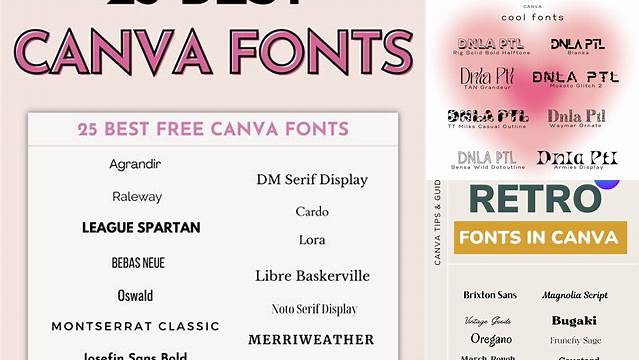
Cool Free Fonts In Canva: Design Like A Pro
Hey guys! Ever feel like your Canva designs are missing that oomph? You know, that special something that makes them pop? Well, chances are, the right font can be a total game-changer. And guess what? Canva's got a massive library of free fonts just waiting to be discovered! So, let's dive into the world of cool fonts in Canva free and how you can use them to create stunning designs. We’ll explore everything from the basics of font pairing to specific font recommendations that will elevate your projects to the next level. Get ready to unleash your inner design guru!
1. Understanding the Basics of Font Pairing in Canva
Okay, so before we jump into specific font recommendations, let's talk about the art of font pairing. Think of it like finding the perfect dance partners – some fonts just naturally groove together, while others... well, they clash. The key to mastering font pairing is understanding contrast. You want to choose fonts that complement each other without being too similar. For example, pairing a bold, attention-grabbing font with a simpler, more readable font is a classic move. This creates visual hierarchy, making your designs easy on the eyes and conveying your message effectively. When considering cool fonts in Canva free, experiment with different combinations to see what works best for your particular project. Don’t be afraid to mix and match serif and sans-serif fonts, or try pairing a script font with a clean sans-serif. The possibilities are endless! Remember, the goal is to create a visually appealing design that is also easy to read and understand. A well-paired font combination can elevate your design from amateur to professional, so take the time to explore and find what resonates with you.
2. Serif Fonts: Timeless and Elegant Options for Canva
Let's kick things off with serif fonts. These fonts have those little decorative strokes (serifs) at the end of each letter, giving them a classic, elegant vibe. Think of them as the sophisticated elder siblings of the font world. Serif fonts are fantastic for body text in longer documents because they guide the reader's eye across the page, making it easier to read. But don't think they're only for serious stuff! When used strategically, serif fonts can also add a touch of class to your social media graphics, logos, and even website headers. Canva offers a wide array of cool fonts in Canva free that fall into the serif category. Some popular choices include Playfair Display, a beautiful high-contrast serif perfect for headings, and Merriweather, a highly readable serif that works wonders for body text. Times New Roman is also an option, though perhaps a bit overused. Experiment with different serif styles, from traditional to modern, to find the perfect fit for your design aesthetic. Remember, a well-chosen serif font can instantly elevate the sophistication and readability of your work, making it a powerful tool in your design arsenal.
3. Sans-Serif Fonts: Modern and Minimalist Choices in Canva
Now, let's talk sans-serif fonts. These are the cool, modern kids on the block – sleek, clean, and without those little serif flourishes. Sans-serif fonts are known for their readability on screens, making them a popular choice for websites, social media graphics, and presentations. They exude a minimalist vibe, perfect for designs that need to feel contemporary and approachable. Canva is packed with cool fonts in Canva free that fit this category. Think Montserrat, a versatile sans-serif that works beautifully in headings and body text, or Open Sans, a classic and highly readable font that's a go-to for many designers. Lato is another excellent choice, offering a balanced and modern feel. When working with sans-serif fonts, consider the weight and width of the letters. A bolder sans-serif can make a strong statement in a heading, while a lighter weight can be used for body text to create a sense of airiness. Pairing a bold sans-serif with a lighter sans-serif is a great way to create visual contrast and hierarchy in your designs. Whether you're aiming for a sleek, corporate look or a friendly, approachable feel, sans-serif fonts are a versatile option to explore in Canva.
4. Script Fonts: Adding a Touch of Elegance and Personality
Ready to add a little flair to your designs? That's where script fonts come in! These fonts mimic the flowing strokes of handwriting, adding a touch of elegance, personality, and even a bit of whimsy to your projects. Script fonts are perfect for logos, invitations, quotes, and anything where you want to make a statement. However, a little goes a long way with script fonts – they can be harder to read in large blocks of text, so it's best to use them sparingly, primarily for headings or accents. Canva boasts a fantastic selection of cool fonts in Canva free within the script category. Pacifico is a popular choice, with its casual and friendly vibe, while Great Vibes exudes a more formal and elegant feel. Brush Script MT is another classic option, known for its bold and expressive strokes. When using script fonts, consider pairing them with a simple sans-serif or serif font to ensure readability. This creates a nice contrast and prevents your design from becoming overwhelming. Experiment with different script styles to find the perfect match for your brand or project. Whether you're aiming for a romantic, playful, or sophisticated look, a well-chosen script font can add that special touch to your designs.
5. Display Fonts: Making a Bold Statement with Canva Fonts
Need a font that screams “Look at me!”? That's where display fonts come in. These fonts are designed to grab attention and make a statement, often featuring unique and decorative styles. They're perfect for headings, posters, logos, and anything where you want to create a strong visual impact. Display fonts are all about personality, so don't be afraid to get creative and experiment with different styles. However, like script fonts, display fonts are best used sparingly – too much can overwhelm your design and make it difficult to read. Canva has a great selection of cool fonts in Canva free that fall into the display category. Bebas Neue is a popular choice for its tall and impactful letters, while Lobster Two offers a more playful and retro vibe. Oswald is another versatile option, with its bold and condensed design. When using display fonts, consider the overall tone and message of your design. A bold and geometric display font might be perfect for a tech company, while a more whimsical display font might be better suited for a children's brand. Pair your display font with a simpler sans-serif or serif font for body text to ensure readability. With the right display font, you can instantly transform your design and make a lasting impression.
6. Best Free Serif Fonts in Canva for Headlines
Headlines are your chance to grab attention and set the tone for your entire design. Choosing the right serif font for your headlines can instantly elevate your project, adding a touch of elegance and authority. Canva offers a plethora of cool fonts in Canva free that are perfect for headlines. One standout option is Playfair Display, a high-contrast serif that exudes sophistication and drama. Its elegant letterforms make it ideal for fashion blogs, wedding invitations, and any design that needs a touch of class. Another excellent choice is Abril Fatface, a bold and impactful serif that demands attention. Its strong presence makes it perfect for magazine covers, posters, and headlines that need to pack a punch. For a more classic and timeless feel, consider using Lora, a well-balanced serif with beautiful curves. It’s incredibly versatile and works well for a variety of projects. When selecting a serif font for your headlines, consider the overall style and message of your design. A bold and dramatic serif can create a sense of excitement, while a more elegant serif can convey sophistication and grace. Experiment with different font sizes and weights to find the perfect balance and ensure your headlines stand out.
7. Top Free Sans-Serif Fonts in Canva for Body Text
Body text is the workhorse of your design, so readability is key. You need a font that's easy on the eyes and doesn't distract from your message. Sans-serif fonts are generally a great choice for body text due to their clean and minimalist design. Canva offers a fantastic selection of cool fonts in Canva free that are perfect for this purpose. Open Sans is a classic and highly readable sans-serif that's a go-to for many designers. Its clean lines and balanced letterforms make it ideal for websites, blog posts, and any design that requires a lot of text. Another excellent option is Lato, a well-balanced and modern sans-serif that's known for its versatility. It works well in both print and digital formats, making it a great choice for a wide range of projects. For a slightly more condensed feel, consider using Montserrat, a popular sans-serif that's both stylish and readable. Its geometric design adds a touch of modernity to any project. When choosing a sans-serif font for your body text, prioritize readability and ensure it complements your headline font. A well-chosen body text font will make your designs easy to read and engage with, helping you to communicate your message effectively.
8. Must-Try Script Fonts for Logos and Branding
Your logo is the face of your brand, so it needs to be memorable and impactful. Script fonts can add a touch of personality and elegance to your logo, making it stand out from the crowd. Canva has a fantastic collection of cool fonts in Canva free that are perfect for logos and branding. One popular choice is Pacifico, a casual and friendly script font that exudes a laid-back vibe. It’s perfect for brands that want to convey a sense of warmth and approachability. For a more elegant and sophisticated look, consider using Great Vibes, a beautiful script font with flowing letterforms. It’s ideal for luxury brands, wedding businesses, and any project that needs a touch of class. Another excellent option is Playlist Script, a modern and stylish script font that’s perfect for contemporary brands. Its clean lines and bold strokes make it highly versatile and easy to use. When selecting a script font for your logo, ensure it reflects your brand's personality and values. A well-chosen script font can add a unique and memorable touch to your logo, helping you to build a strong brand identity.
9. Creative Display Fonts to Elevate Your Social Media Graphics
Social media is a visual platform, so your graphics need to grab attention and stand out in a crowded feed. Creative display fonts can add a unique and eye-catching element to your social media posts, helping you to attract followers and engage with your audience. Canva offers a wide array of cool fonts in Canva free that are perfect for social media graphics. One standout option is Bebas Neue, a tall and impactful sans-serif that’s perfect for headlines and call-to-actions. Its bold presence ensures your message won't be missed. For a more playful and retro vibe, consider using Lobster Two, a fun and quirky display font that adds a touch of personality to your designs. It’s ideal for Instagram stories, promotional graphics, and any social media post that needs a little extra flair. Another excellent choice is Oswald, a bold and condensed sans-serif that’s perfect for headlines and captions. Its versatile design makes it easy to use in a variety of social media formats. When using display fonts in your social media graphics, consider the overall aesthetic of your brand and choose fonts that align with your brand identity. A well-chosen display font can help you to create visually appealing social media content that captures attention and drives engagement.
10. Font Combinations That Work Wonders in Canva
The key to great typography is not just choosing individual fonts, but also combining them effectively. Font pairing can seem daunting, but it’s all about creating contrast and visual harmony. When done well, font combinations can elevate your designs and make your message more impactful. Canva offers a plethora of cool fonts in Canva free, so let’s explore some combinations that work wonders. A classic pairing is a bold serif for headlines with a clean sans-serif for body text. For example, Playfair Display paired with Montserrat is an elegant and readable combination. Another effective pairing is a script font for headings with a simple sans-serif for body text. Pacifico paired with Open Sans is a friendly and approachable combination that works well for websites and social media graphics. For a modern and minimalist look, try pairing a bold sans-serif with a lighter sans-serif. Bebas Neue paired with Lato is a stylish and contemporary combination that’s perfect for branding and marketing materials. When experimenting with font combinations, consider the overall tone and style of your design. A well-chosen font pairing can create a cohesive and visually appealing design that effectively communicates your message.
11. Using Canva's Font Filters to Find the Perfect Style
Canva's font library is vast, which is fantastic, but it can also be a little overwhelming. Luckily, Canva offers font filters that help you narrow down your search and find the perfect style for your project. These filters allow you to sort fonts by categories like serif, sans-serif, script, and display, making it easier to browse within specific styles. You can also filter by style characteristics, such as bold, light, or handwritten, which helps you find fonts that match your desired aesthetic. The filter option is a lifesaver when exploring the cool fonts in Canva free offerings. For example, if you’re looking for a modern and minimalist font, you can filter by sans-serif and then select “geometric” or “condensed” styles. If you need a font for a wedding invitation, you can filter by script and then select “elegant” or “formal.” Canva’s font filters are a powerful tool for streamlining your font selection process. By using these filters, you can quickly and easily find the perfect font to complement your design, saving you time and effort. So, don't hesitate to dive into those filters and discover the hidden gems in Canva's font library.
12. Uploading Your Own Fonts to Canva for More Customization
While Canva has a fantastic selection of free fonts, sometimes you need something truly unique. That's where the ability to upload your own fonts comes in handy! Canva Pro users have the option to upload their own fonts, giving them even more flexibility and customization options. This is a game-changer for branding consistency, allowing you to use your brand's specific fonts in all your Canva designs. The upload process is super simple – just navigate to the Brand Kit section in Canva, and you'll find the option to upload your fonts. Once uploaded, your fonts will be available alongside Canva's built-in fonts, making it easy to incorporate them into your projects. This is a huge advantage when working with cool fonts in Canva free because it expands your creative possibilities exponentially. Imagine finding the perfect font online, purchasing it, and then seamlessly integrating it into your Canva workflow. Uploading your own fonts also allows you to use fonts that might not be available in Canva's free library, giving you access to a wider range of styles and designs. So, if you're serious about branding or just want to add a personal touch to your designs, consider upgrading to Canva Pro and unlocking the power of font uploads.
13. Using Fonts to Create Visual Hierarchy in Your Designs
Visual hierarchy is a crucial design principle that guides the viewer's eye and helps them understand the information you're presenting. Fonts play a significant role in creating visual hierarchy by establishing the importance of different elements in your design. Think of it like this: headlines should be bold and attention-grabbing, while body text should be easy to read and less prominent. The way you use cool fonts in Canva free can directly impact how effectively your audience engages with your content. You can create visual hierarchy by varying font sizes, weights, and styles. For example, using a larger font size for headlines and a smaller font size for body text instantly creates a visual distinction. Similarly, using a bold font for headings and a regular weight for body text emphasizes the headlines. Font styles also play a role – a script font might be used for a subheading to add a touch of personality, while a clean sans-serif is used for the main body of text. Consistency is key when creating visual hierarchy. Stick to a limited number of fonts and use them strategically to create a clear and organized design. A well-defined visual hierarchy makes your designs more engaging and easier to understand, ensuring your message is communicated effectively.
14. Pairing Fonts with Images for Maximum Impact
Fonts and images are the dynamic duo of design – they work together to create a cohesive and impactful visual experience. Pairing fonts with images thoughtfully can amplify your message and make your designs more compelling. When choosing cool fonts in Canva free to complement your images, consider the overall tone and style of your design. A modern photograph might pair well with a clean sans-serif font, while a vintage-inspired image might look stunning with a classic serif font or even a script. Think about the emotions you want to evoke and choose fonts that align with those emotions. For instance, a bold and energetic image might benefit from a strong display font, while a calming and serene image might pair well with a delicate serif font. Contrast is also important. If your image is visually busy, choose a simple and readable font to avoid overwhelming the viewer. Conversely, if your image is minimalist, you can use a more decorative font to add personality. Pay attention to the color palette as well. Ensure your font color complements the colors in your image, creating a harmonious and visually appealing design. By carefully pairing fonts with images, you can create designs that are both visually stunning and highly effective at communicating your message.
15. Font Psychology: Choosing Fonts That Convey the Right Message
Did you know that fonts have personalities? It's true! The fonts you choose can subtly influence how your audience perceives your message. This is where font psychology comes into play – understanding the emotional associations people have with different font styles. When selecting cool fonts in Canva free, it’s essential to consider the message you want to convey and the emotions you want to evoke. Serif fonts, with their classic and traditional appearance, often convey a sense of authority, trustworthiness, and stability. They're a great choice for brands that want to project a sense of history and reliability. Sans-serif fonts, on the other hand, are often seen as modern, clean, and approachable. They're a popular choice for tech companies, startups, and brands that want to project a contemporary image. Script fonts evoke feelings of elegance, creativity, and personalization. They're perfect for brands that want to add a touch of personality and sophistication. Display fonts are the attention-grabbers, conveying a sense of playfulness, excitement, or drama. They're ideal for headlines, posters, and designs that need to make a bold statement. By understanding font psychology, you can choose fonts that align with your brand's personality and effectively communicate your message to your target audience.
16. Kerning, Tracking, and Leading: Fine-Tuning Your Typography
Okay, so you've chosen your fonts – awesome! But the journey to perfect typography doesn't end there. Now it's time to dive into the nitty-gritty details: kerning, tracking, and leading. These three elements are essential for fine-tuning your typography and ensuring your text looks polished and professional. Kerning refers to the spacing between individual letters. Adjusting the kerning can improve readability and make your text look more balanced. Tracking, also known as letter-spacing, refers to the uniform spacing between all letters in a word or line of text. Increasing the tracking can create a more airy and modern feel, while decreasing it can make your text look more condensed. Leading (pronounced “ledding”) refers to the vertical space between lines of text. Adjusting the leading can dramatically impact readability. Too little leading can make your text feel cramped, while too much leading can make it feel disconnected. Canva provides tools to adjust kerning, tracking, and leading, allowing you to fine-tune your typography and achieve a professional look. Experiment with these settings when using cool fonts in Canva free to see how they affect the overall appearance of your text. Mastering these subtle adjustments can elevate your designs from good to great!
17. Creating Font Mood Boards for Design Inspiration
Feeling stuck in a font rut? One of the best ways to spark creativity and explore new typography ideas is to create a font mood board. Think of it as a visual playground for fonts – a place where you can gather inspiration, experiment with different styles, and discover new combinations. A font mood board can be physical (think magazine cutouts and handwritten notes) or digital (using tools like Pinterest or Canva itself). Start by collecting fonts that you find appealing, regardless of whether they fit a specific project. Include a mix of serif, sans-serif, script, and display fonts to create a diverse range of options. When using cool fonts in Canva free, consider screenshotting examples of fonts used in designs that catch your eye. Then, experiment with different font pairings, sizes, and colors to see how they interact with each other. Add images, textures, and color palettes to your mood board to create a holistic visual representation of your design style. Refer to your font mood board whenever you're starting a new project or feeling creatively blocked. It's a fantastic way to jumpstart your design process and ensure your typography is on point. Creating font mood boards is not just fun – it's a valuable tool for developing your design skills and staying inspired.
18. Free Font Resources Outside of Canva to Expand Your Options
Canva's font library is fantastic, but sometimes you need to venture outside to find that perfect font. The good news is there are tons of amazing free font resources available online! Exploring these resources can significantly expand your options and help you discover unique and interesting fonts that you might not find within Canva. When searching for cool fonts in Canva free becomes too limiting, sites like Google Fonts, Font Squirrel, and DaFont are treasure troves of free typography. Google Fonts offers a massive library of open-source fonts that are free for both personal and commercial use. Font Squirrel curates high-quality free fonts, ensuring you're getting well-designed typography. DaFont is a classic resource with a vast collection of fonts, although it's important to check the license for each font before using it commercially. When downloading fonts from external sources, be mindful of the licensing terms. Some fonts are free for personal use only, while others can be used commercially. Make sure you understand the license before using the font in your projects. Once you've downloaded your fonts, you can upload them to Canva Pro to use them in your designs. Expanding your font library with external resources is a great way to add personality and uniqueness to your Canva projects.
19. Avoiding Common Font Mistakes in Your Designs
Choosing the right fonts is crucial, but it's equally important to avoid common font mistakes that can detract from your designs. Overusing fonts, pairing incompatible styles, and neglecting readability are just a few pitfalls to watch out for. A common mistake is using too many fonts in a single design. Sticking to two or three fonts at most will create a more cohesive and professional look. Another pitfall is pairing fonts that are too similar. You want to create contrast, but not confusion. Pairing a bold display font with a delicate script font, or a classic serif with a clean sans-serif are some examples of excellent contrasts. Neglecting readability is a major issue, especially in body text. Avoid using overly decorative or script fonts for long passages of text, as they can be difficult to read. Also, be mindful of font sizes and colors. Ensure your text is large enough to read easily and that the color contrasts well with the background. When using cool fonts in Canva free, consider how the font's spacing impacts the design. Tight spacing can make text cramped, while too much spacing can make it feel disconnected. By avoiding these common font mistakes, you can ensure your designs are visually appealing, easy to read, and effectively communicate your message.
20. How to Stay Up-to-Date with Font Trends and New Releases
The world of typography is constantly evolving, with new fonts and trends emerging all the time. Staying up-to-date with these trends can help you keep your designs fresh, modern, and relevant. So, how do you stay in the loop? Following design blogs and websites is a great way to stay informed about new font releases and trending styles. Websites like Typewolf, Creative Bloq, and Awwwards often feature articles and showcases on typography trends. Another fantastic way to stay updated is to follow typographers and designers on social media platforms like Instagram and Behance. These platforms are a treasure trove of design inspiration and allow you to see how professionals are using fonts in their work. Subscribing to newsletters from font foundries and design resources can also provide valuable insights into new font releases and industry trends. Exploring cool fonts in Canva free and outside of Canva also benefits from understanding the overall trends. Don't be afraid to experiment with new fonts and styles in your own projects. Try incorporating trending fonts into your designs and see how they resonate with your audience. Staying up-to-date with font trends is not just about following the crowd – it's about expanding your design knowledge and developing your own unique style.
21. Utilizing Canva's Font Keyboard Shortcuts for Efficiency
Time is money, especially when you're designing. Canva offers a range of keyboard shortcuts that can significantly speed up your workflow, and that includes working with fonts! Learning and utilizing these shortcuts can save you valuable time and effort, allowing you to focus on the creative aspects of your design. When exploring cool fonts in Canva free, simple shortcuts can greatly improve efficiency. For example, you can quickly increase or decrease the font size by using the Cmd/Ctrl + Shift + > and Cmd/Ctrl + Shift + < shortcuts. To change the font style to bold, italic, or underline, simply use the Cmd/Ctrl + B, Cmd/Ctrl + I, and Cmd/Ctrl + U shortcuts. These basic shortcuts can save you from clicking through menus and options every time you want to make a quick adjustment. Canva also has shortcuts for adjusting text alignment (Cmd/Ctrl + Shift + L for left, Cmd/Ctrl + Shift + R for right, Cmd/Ctrl + Shift + C for center, and Cmd/Ctrl + Shift + J for justified). These shortcuts make it easy to format your text and create a visually appealing layout. Learning and using Canva's font keyboard shortcuts might seem like a small thing, but the time savings add up quickly. Incorporate these shortcuts into your workflow and you'll be amazed at how much faster and more efficient your design process becomes.
22. Creating a Brand Typography Guide for Consistency
Consistency is key to building a strong and recognizable brand. And typography plays a crucial role in establishing your brand's visual identity. A brand typography guide is a document that outlines the specific fonts and font styles that should be used across all your brand materials, ensuring a cohesive and professional look. This guide serves as a reference point for anyone creating content for your brand, from social media graphics to website copy to marketing materials. Your brand typography guide should include your primary and secondary fonts, as well as guidelines on how to use them in different contexts. For example, you might specify which font should be used for headlines, body text, captions, and call-to-actions. When choosing cool fonts in Canva free or other sources, document your choices in your style guide. Include information on font sizes, weights, colors, and spacing to ensure consistency across all your designs. If you're using specific font pairings, document those as well. It's also helpful to provide examples of how the fonts should be used in different layouts and formats. A well-defined brand typography guide not only ensures consistency but also saves time and effort in the long run. It eliminates the guesswork of font selection and ensures that everyone is on the same page when it comes to your brand's visual identity.
23. Using Color to Enhance Your Font Choices in Canva
Color is a powerful design element that can significantly impact the effectiveness of your typography. The color you choose for your fonts can influence readability, create visual hierarchy, and evoke specific emotions. When selecting font colors, consider the overall color palette of your design and choose colors that complement your background and images. Contrast is crucial for readability. Ensure that your font color contrasts sufficiently with the background color to make your text easy to read. Light text on a dark background and dark text on a light background are classic, high-contrast combinations. Color can also be used to create visual hierarchy. Using a bolder or brighter color for headlines can make them stand out and attract attention. Subtler colors can be used for body text to ensure it doesn't compete with the headlines. When leveraging cool fonts in Canva free, experiment with different color combinations to see how they affect the overall design. Font color can also be used to convey specific emotions or brand personality. For example, bold and vibrant colors might be used for a playful brand, while muted and neutral colors might be used for a sophisticated brand. Canva offers a wide range of color options, allowing you to experiment and find the perfect hues to complement your font choices. By carefully considering color, you can enhance your typography and create visually appealing and effective designs.
24. Adding Text Effects to Make Your Fonts Stand Out
Want to take your typography to the next level? Try adding text effects! Canva offers a variety of text effects that can transform your fonts and make them truly stand out. These effects can add depth, dimension, and personality to your designs, helping you to grab attention and create a lasting impression. One popular text effect is the shadow effect, which adds a subtle shadow behind your text, creating a sense of depth. This effect can be used to make your text pop off the page and improve readability. Another common effect is the outline effect, which adds an outline around your text, making it more visible against busy backgrounds. The neon effect adds a vibrant glow to your text, creating a retro and eye-catching look. If you are working with cool fonts in Canva free, consider adding a background to your text. Experiment with different background shapes and colors to create a unique and eye-catching design. Canva also offers a range of other text effects, such as the curve effect, which allows you to curve your text along a path, and the glitch effect, which adds a digital distortion to your text. When using text effects, it's important to strike a balance. Too many effects can make your text look cluttered and overwhelming. Use effects sparingly and strategically to enhance your fonts and create a visually appealing design. Text effects can be a powerful tool for transforming your typography and making your designs truly unique.
25. Optimizing Font Sizes for Different Design Platforms (Web, Print, Social Media)
Font sizes play a crucial role in readability and visual appeal, but the ideal font size can vary depending on the platform you're designing for. What looks great on a website might not translate well to a printed poster or a social media graphic. Optimizing font sizes for different platforms is essential to ensure your text is legible and effective. For web design, font sizes are typically measured in pixels (px). A common rule of thumb is to use a minimum font size of 16px for body text to ensure readability on most screens. Headlines should be significantly larger, with sizes ranging from 24px to 48px or even larger, depending on the importance of the headline. For print design, font sizes are typically measured in points (pt). A common range for body text is 10pt to 12pt, while headlines can range from 14pt to 36pt or larger. Choosing the cool fonts in Canva free is important, but sizes are equally key. Social media graphics often require larger font sizes to ensure readability on small screens. Headlines should be large and eye-catching, while body text should be concise and easy to read. Experiment with different font sizes to find what works best for your specific platform and design. When optimizing font sizes, consider factors such as screen resolution, viewing distance, and the amount of text on the page. By carefully optimizing font sizes for different platforms, you can ensure your text is legible, visually appealing, and effectively communicates your message.
26. How to Use Canva's Font Suggestions for Inspiration
Sometimes, the biggest challenge in design is simply getting started. With so many options available, choosing the right fonts can feel overwhelming. Luckily, Canva offers font suggestions that can help spark your creativity and guide you towards the perfect typography. Canva's font suggestions are based on a variety of factors, including the style of your design, the fonts you've already used, and popular font pairings. When you select a text element in Canva, you'll see a list of suggested fonts in the font dropdown menu. These suggestions can be a great starting point for exploring different typography options. If you're working with cool fonts in Canva free, these suggestions can introduce you to new pairings you haven't considered. Canva also suggests font combinations, which can be incredibly helpful if you're struggling to find fonts that work well together. These suggestions often pair a headline font with a body text font, making it easy to create a visually balanced design. Don't be afraid to experiment with Canva's font suggestions. They can lead you to unexpected and inspiring typography choices. However, it's also important to trust your own design instincts. If a suggested font doesn't feel right for your project, don't hesitate to explore other options. Canva's font suggestions are a valuable tool for inspiration, but the ultimate font choice should always align with your design goals and brand identity.
27. Incorporating Animated Fonts in Canva for Engaging Designs
Want to add a dynamic and eye-catching element to your designs? Try using animated fonts! Animated fonts can bring your text to life, creating engaging and memorable visuals. Canva offers a variety of animated font options that can be used in videos, social media graphics, presentations, and more. These fonts add a touch of movement and personality to your designs, helping you to capture attention and stand out from the crowd. When choosing animated fonts, consider the overall tone and style of your design. Some animated fonts are playful and whimsical, while others are more sophisticated and elegant. Select an animated font that aligns with your brand personality and the message you want to convey. If you are exploring cool fonts in Canva free, animated options open up a new dimension. Canva offers a range of animation styles, including fade, pan, pop, and tumble. Experiment with different animation styles to see how they affect the look and feel of your text. Some animations are subtle and understated, while others are more dramatic and attention-grabbing. When using animated fonts, it's important to use them sparingly. Overusing animation can be distracting and overwhelming. Use animated fonts strategically to highlight key messages or add a touch of flair to your designs. Animated fonts can be a powerful tool for creating engaging and memorable visuals. By incorporating them into your designs, you can capture attention, communicate your message effectively, and leave a lasting impression.
28. Font Licensing: Understanding the Rules for Commercial Use
Font licensing can be a confusing topic, but it's crucial to understand the rules before using fonts in your designs, especially for commercial projects. Using a font without the proper license can lead to legal issues, so it's always best to be informed. Font licenses specify how a font can be used, including whether it can be used for commercial purposes, how many users can access the font, and whether it can be embedded in digital documents or software. When downloading fonts from online resources, carefully review the license agreement before using the font in your projects. Some fonts are free for personal use only, while others are free for commercial use. Some licenses require attribution, meaning you need to give credit to the font designer or foundry. When browsing cool fonts in Canva free, you can be assured they are licensed for commercial use within Canva's platform. However, if you upload your own fonts, it's your responsibility to ensure you have the necessary licenses. If you're unsure about the licensing terms for a particular font, it's always best to err on the side of caution and contact the font designer or foundry for clarification. Font licensing can seem daunting, but it's an essential part of respecting the rights of font designers and protecting yourself from legal issues. By understanding font licensing, you can use fonts confidently and create professional designs without any worries.
29. Exporting Your Canva Designs with the Correct Font Settings
So, you've created a stunning design in Canva – congratulations! But the final step is crucial: exporting your design with the correct font settings. How you export your design can impact how your fonts appear in the final output, so it's important to choose the right settings. Canva offers a variety of export options, including PNG, JPG, PDF Standard, and PDF Print. The best export option for your design depends on how you plan to use it. For web graphics and social media posts, PNG and JPG are common choices. PNG is a lossless format, which means it preserves the quality of your design, including your fonts. JPG is a lossy format, which means it compresses the image and may result in some loss of quality. For documents that need to be printed, PDF Print is the best option. This format embeds the fonts in the PDF file, ensuring they will appear correctly regardless of whether the viewer has the fonts installed on their computer. When thinking about cool fonts in Canva free, you want to ensure they render correctly when shared. If you're exporting your design as a PDF, Canva also offers the option to flatten the PDF. Flattening the PDF converts all the text to outlines, which prevents font issues but also makes the text uneditable. Choose this option if you're concerned about font compatibility and don't need the text to be editable. By exporting your Canva designs with the correct font settings, you can ensure they look their best and avoid any font-related surprises.
30. Font Accessibility: Making Your Designs Readable for Everyone
Accessibility is an essential consideration in design. Ensuring your designs are accessible means making them usable by people with disabilities, including visual impairments. Typography plays a crucial role in font accessibility. Choosing fonts that are easy to read is the first step towards creating accessible designs. Avoid using overly decorative or script fonts for large blocks of text, as they can be difficult for people with visual impairments to read. Stick to clean and simple fonts with good letter spacing and contrast. Font size is also important for accessibility. Use a font size that's large enough to be read easily, especially on screens. Provide options for users to increase the font size if needed. Color contrast is another critical factor. Ensure there's sufficient contrast between your text and background colors to make the text legible for people with low vision. Tools like the WebAIM Color Contrast Checker can help you assess the contrast ratio of your color combinations. As you use cool fonts in Canva free, consider their accessibility for all users. Avoid using color alone to convey information, as people with color blindness may not be able to distinguish the colors. Use other visual cues, such as symbols or text labels, to reinforce your message. By considering font accessibility in your designs, you can ensure your content is inclusive and usable by everyone. Accessibility is not just a good practice – it's an essential part of creating ethical and effective designs.